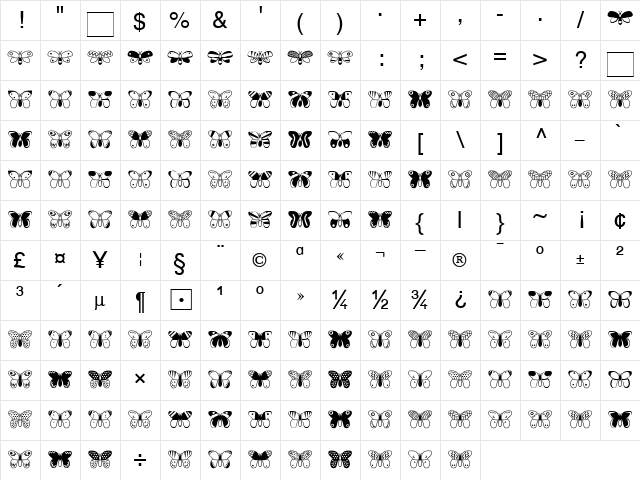
Papillon Becker Normal
Design Context for Papillon Becker
Papillon Becker is a composed and adaptable typeface that performs quietly and consistently across a wide range of design contexts.